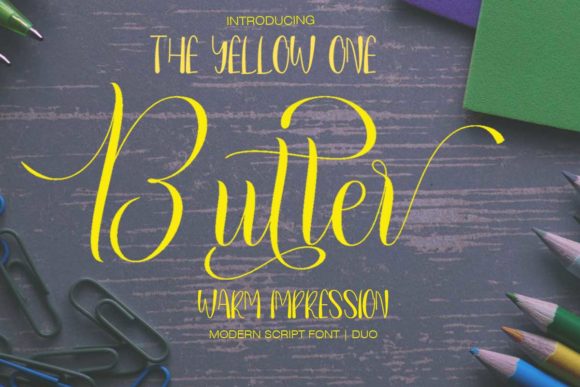
The Magical World of Butter Font: A Designer’s Delight
I still remember the time I was working on a branding project for a bakery, and I was struggling to find the perfect font to capture the warmth and coziness of their brand. The client wanted something that would make their customers feel like they’re biting into a freshly baked cookie, and I was determined to deliver. That’s when I stumbled upon the amazing Butter Font duo – a script and sans version that instantly elevated my design game. In this article, I’ll share my love for this font, its features, and how to make the most of it in your designs.
An Honest Review of Butter Font
What I Love About Butter Font ✨
- 💥 **Authentic and bold**: Butter Font has a unique personality that sets it apart from other font duos.
- ✅ **Versatile**: The script and sans versions can be used separately or together to create stunning designs.
- 🎉 **OpenType features**: Butter Font comes with a range of OpenType features, including glyphs and stylistic alternates, that can be used to add an extra layer of creativity to your designs.
- 👍 **Easy to read**: Despite its bold and playful nature, Butter Font is surprisingly easy to read, making it perfect for body text and headlines.
- ⚠️ **Limited use in formal designs**: Due to its playful nature, Butter Font may not be the best choice for formal or professional designs, such as corporate branding or academic papers.
- 🤔 **Requires some experimentation**: To get the most out of Butter Font’s OpenType features, you may need to experiment with different settings and combinations.
The Backstory of Butter Font
Butter Font was designed by a team of creatives who wanted to create a font that would bring a touch of warmth and personality to designs. Inspired by the nostalgia of childhood memories and the simplicity of everyday life, Butter Font is a reflection of the designer’s passion for typography and creativity.
| Font Name | Butter Font |
| Author | petterco.font |
| What is Butter Font? | Butter Font is a font duo that consists of a script and sans version, perfect for creating bold and playful designs. |
| What are OpenType features? | OpenType features are advanced typography features that allow designers to access a range of glyphs, stylistic alternates, and other typography settings. |
| Is Butter Font easy to read? | Yes, despite its bold and playful nature, Butter Font is surprisingly easy to read, making it perfect for body text and headlines. |